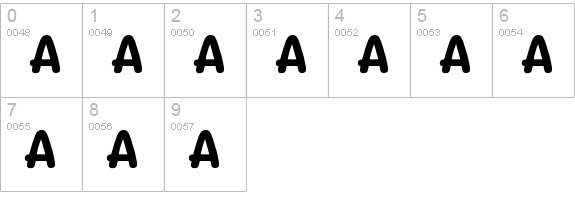
Suske & Wiske ÅÄÖ Font Details
The Suske & Wiske ÅÄÖ font is a charming and whimsical typeface that is sure to add a touch of playfulness to any design project. This font features unique and eye-catching characters with a fun Scandinavian twist, making it perfect for various creative endeavors. Whether you're working on a poster, greeting card, branding project, or website, this font will help your text stand out and make a memorable impression.